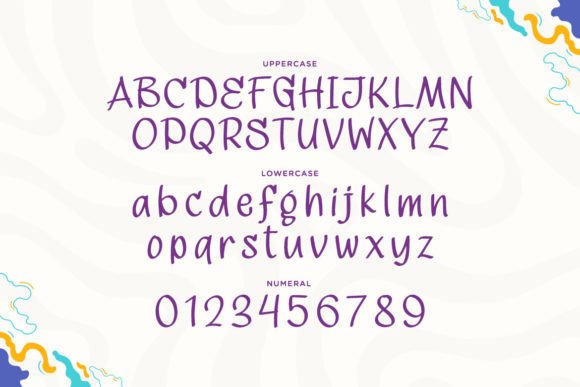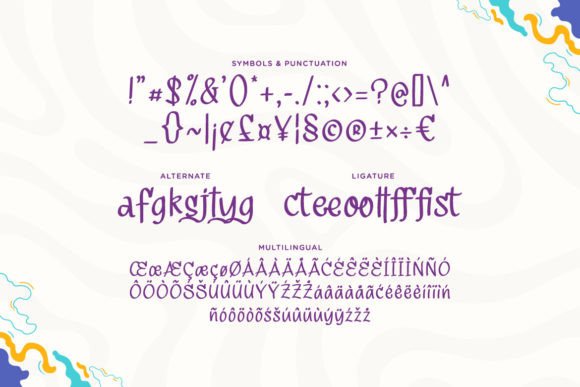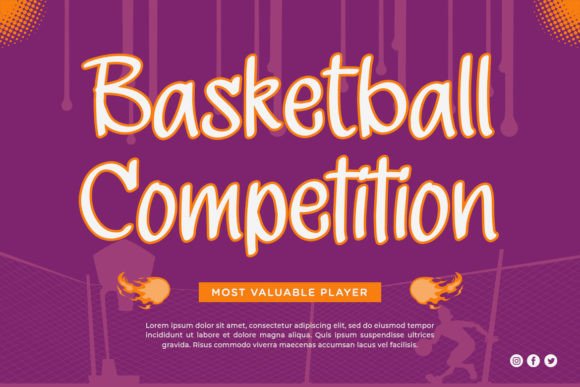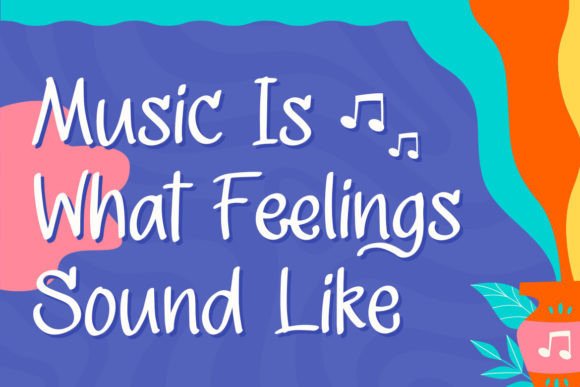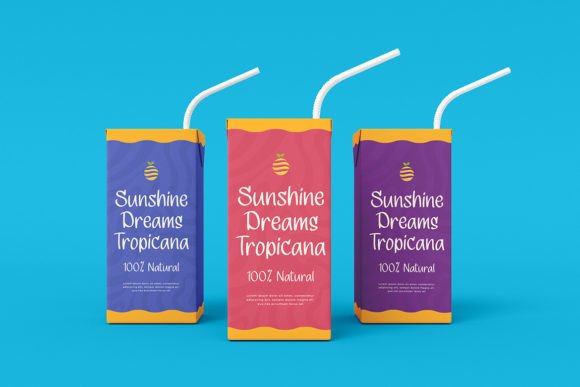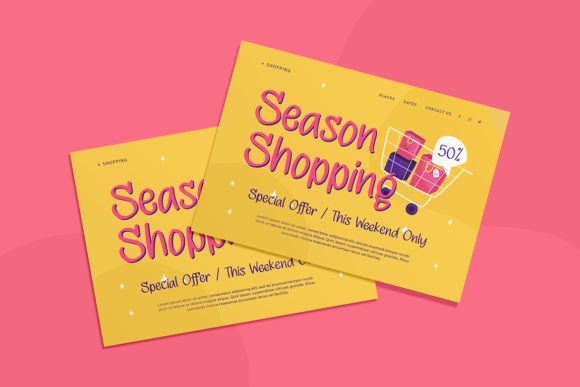
Introducing Glitters Font: Add a Touch of Whimsy to Your Designs
Are you tired of using the same old fonts in your designs? Do you want to add a touch of personality and whimsy to your text? Look no further than Glitters, a playful and dynamic hand-drawn poster font that’s perfect for all your creative projects.
What is Glitters Font?
Glitters is a unique and eye-catching font that’s designed to add a touch of fun and playfulness to your designs. With its quirky and irregular letterforms, Glitters is a font that’s sure to stand out from the crowd. Each letter is carefully hand-drawn to give your text a sense of authenticity and character.
Key Features of Glitters Font
- Hand-drawn design: Each letter in Glitters is carefully hand-drawn to give your text a unique and personal touch.
- Quirky and irregular letterforms: Glitters features quirky and irregular letterforms that add a touch of whimsy to your designs.
- Playful and dynamic: Glitters is a playful and dynamic font that’s perfect for designs that need a bit of personality.
- Perfect for creative projects: Glitters is ideal for use in posters, flyers, packaging design, social media graphics, and other creative projects.
Why Use Glitters Font?
There are many reasons why you should consider using Glitters in your designs. Here are just a few:
- Add a touch of personality: Glitters is a font that’s sure to add a touch of personality to your designs. Its quirky and irregular letterforms make it perfect for designs that need a bit of whimsy.
- Stand out from the crowd: With its unique and eye-catching design, Glitters is a font that’s sure to stand out from the crowd.
- Perfect for creative projects: Glitters is ideal for use in creative projects such as posters, flyers, packaging design, and social media graphics.
Design Ideas Using Glitters Font
Glitters is a versatile font that can be used in a variety of design projects. Here are some design ideas to get you started:
- Posters and flyers: Use Glitters to create eye-catching posters and flyers for events, promotions, and products.
- Packaging design: Use Glitters to add a touch of personality to your packaging design.
- Social media graphics: Use Glitters to create fun and engaging social media graphics.
- Invitations and greeting cards: Use Glitters to create unique and personalized invitations and greeting cards.
In conclusion, Glitters is a fun and dynamic hand-drawn poster font that’s perfect for all your creative projects. With its quirky and irregular letterforms, Glitters is a font that’s sure to add a touch of whimsy to your designs. Whether you’re creating posters, flyers, packaging design, or social media graphics, Glitters is the perfect font for the job. So why not add some sparkle to your designs with Glitters today?